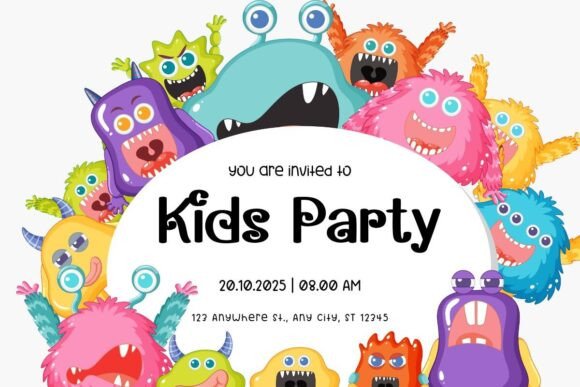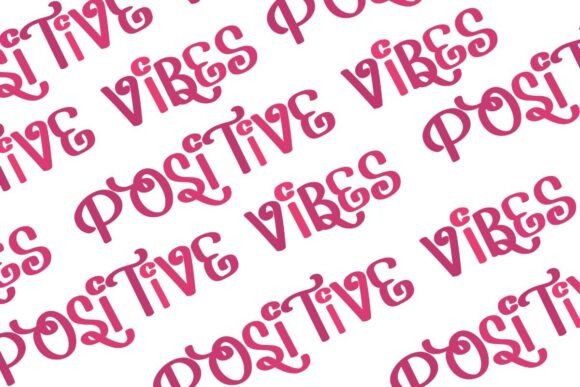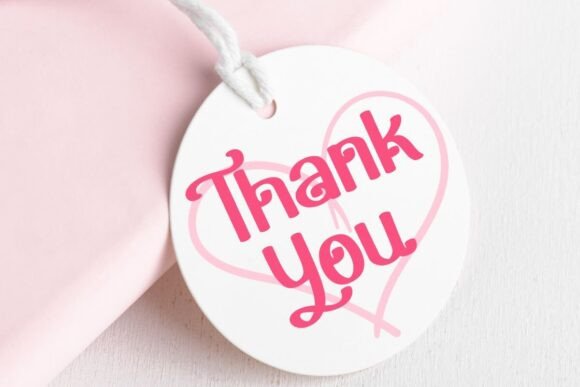
Joyful Learning Font
About the Joyful Learning Font
Introducing the Joyful Learning Font, a beautifully crafted typeface designed to elevate your creative projects. Joyful Learning is a cute and playful handwritten font that combines fun and smooth design elements. With its rounded strokes and friendly character, this font is perfect for projects that need a cheerful and inviting touch, such as invitations, educational materials, product packaging, and social media graphics. It includes uppercase and lowercase letters, special characters, alternates, and multilingual support letters to add creative variety to your designs.
Joyful Learning excels in headlines, short-form text for posters, and branding applications where a cheerful, approachable aesthetic is desired. It’s particularly well-suited for children’s products, educational materials, and brands focused on fun and creativity. However, its handwritten nature makes it less suitable for body copy or UI elements requiring high legibility at smaller sizes.
Pairing Joyful Learning with a clean sans-serif like Open Sans for body text creates a strong contrast and enhances readability. For a more playful feel, consider pairing it with a geometric sans-serif such as Futura. A classic serif like Garamond could also provide a sophisticated counterpoint, balancing the font’s informal quality.
The font’s overall personality is undeniably friendly and approachable, conveying a sense of youthful energy and optimism. Its rounded forms and consistent stroke weight create a feeling of warmth and approachability making it ideal for projects needing to express positive emotions.
Joyful Learning Font Usage Examples
Joyful Learning Font Example